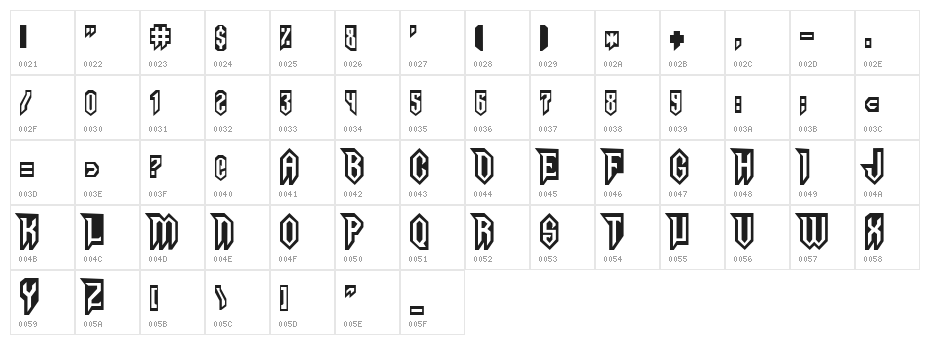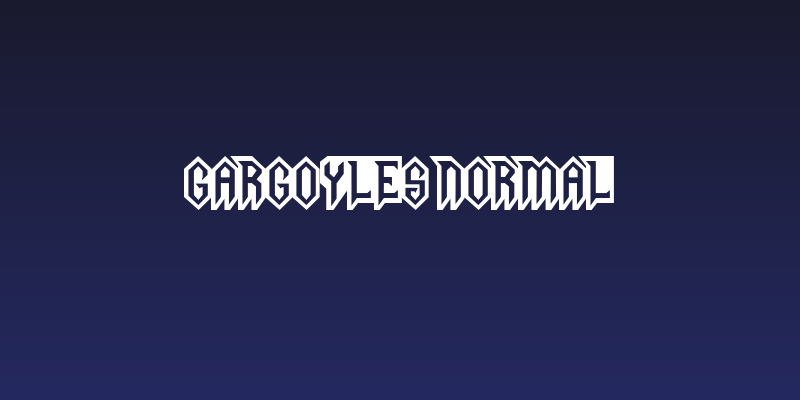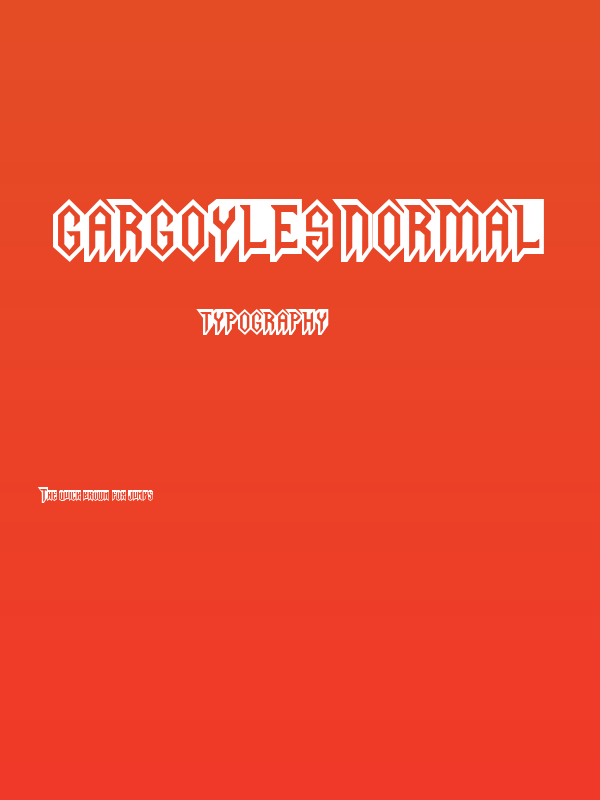
Gargoyles Normal Font
Gargoyles Normal Description
This font features a bold, angular design with a strong, gothic influence. The characters are heavily stylized with sharp edges and a distinct, shadowed outline that gives them a three-dimensional appearance. The uppercase letters are particularly striking, with intricate details that enhance their dramatic effect. The numbers and special characters maintain this bold aesthetic, ensuring consistency throughout the typeface. This font's unique style makes it ideal for projects that require a strong visual impact.
| Overall Style | Gothic, Decorative |
| Proposed Projects | Ideal for video game titles, movie posters, or any design needing a dramatic, gothic flair. |